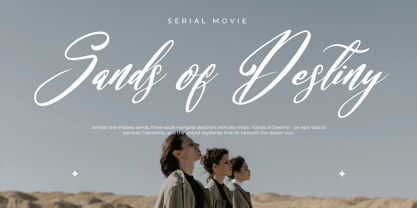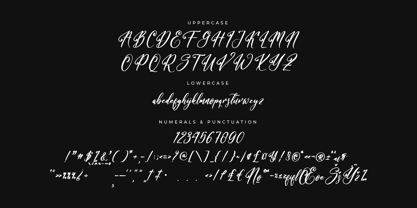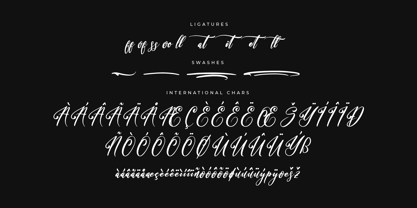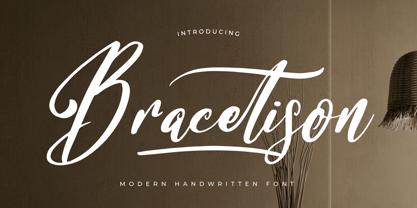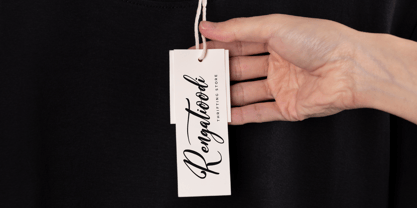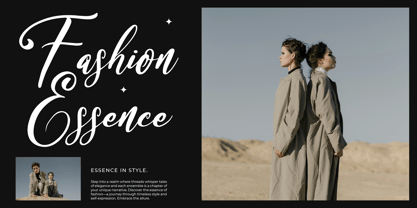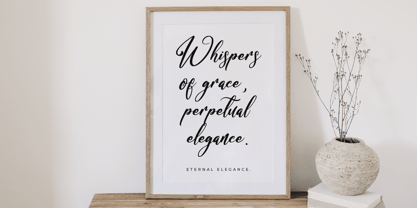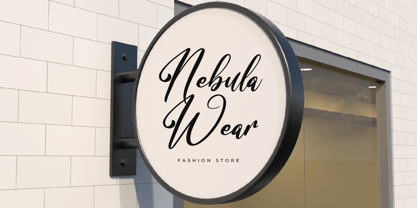
Bracetison
The Bracetison Font Family was designed by Heru Utama Putra and published by Letterena Studios. Bracetison contains 2 styles and family package options. More about this family
Bracetison – Modern Handwritten Font , from Letterena, is a Luxury Script font, suitable for any projects such as: logos, branding projects, homeware designs, product packaging, mugs, quotes, posters, shopping bags, t-shirts, book covers, name card, invitation cards, greeting cards, label, photography, watermark, special events, and all your other luxury and beautiful projects that need a Luxury serif taste.